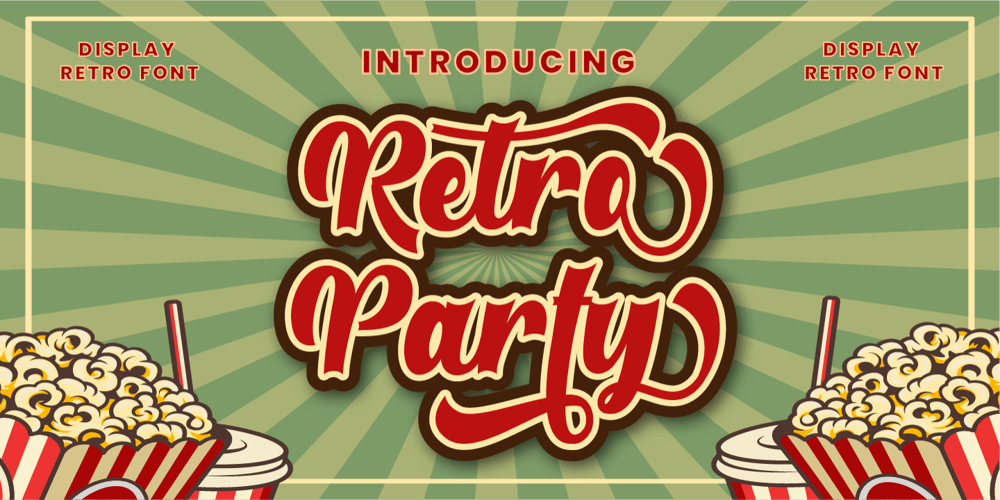
Retroparty Font Family was designed by Putra Novembria Candra Kusuma and published by Putracetol. Retroparty contains 1 styles and family package options. Introducing Retro Party – A Display Retro Script Font. In creating this font, I just wanted to combine classic style with modern retro style, so be this font. Hope you like it. Inspired by some retro fonts that I made before.Retro Party is perfect for vintage and retro design, badge, logos,t-shirt, poster, branding, packaging, signage, book coverand so much more!Come with Opentype feature with a lot of alternates, its help you to make great lettering. This font is also support multi language.